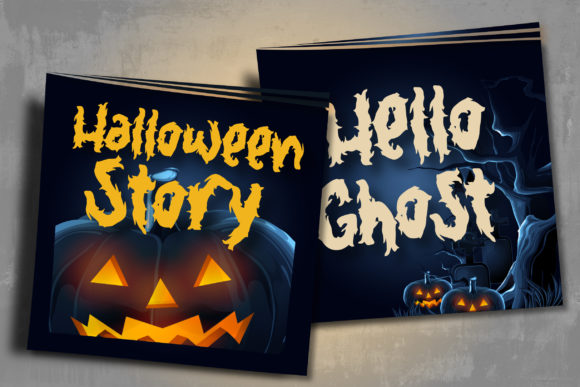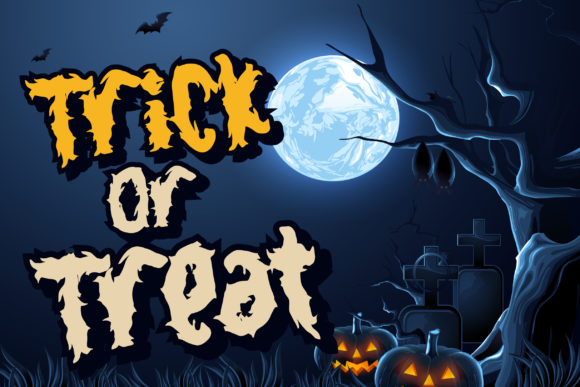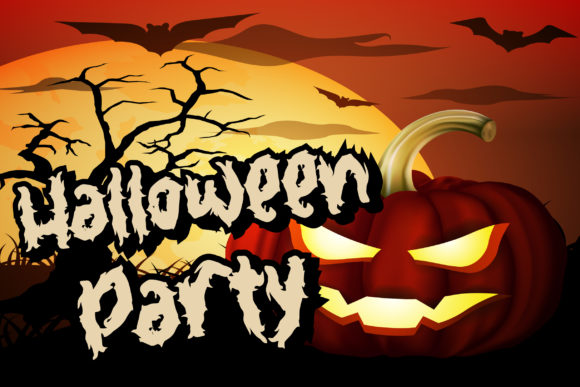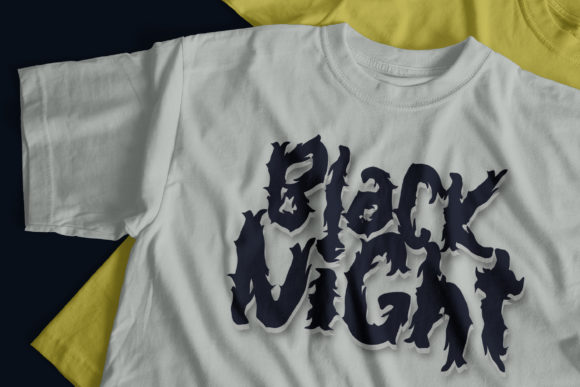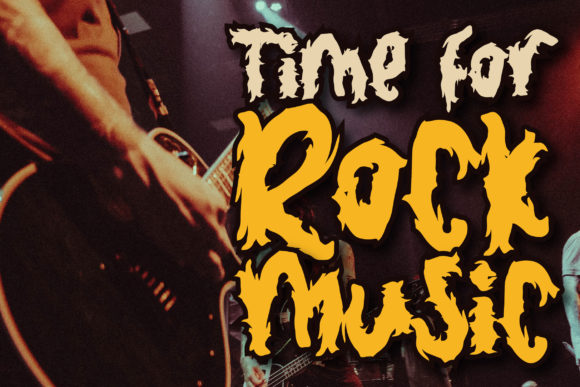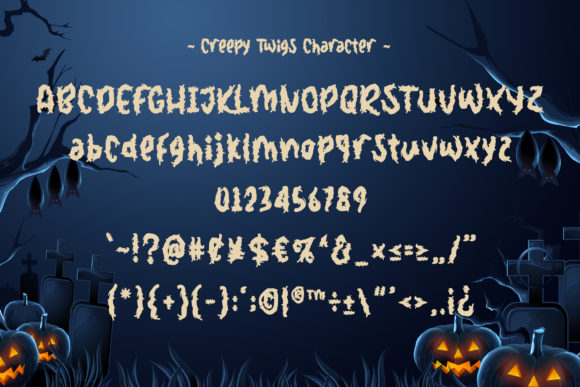
Unlock Your Creativity with the Creepy Twigs Font
Have you ever been working on a design project, pouring your heart and soul into it, only to feel like it’s missing that extra something? You know, that spark that makes it truly stand out from the crowd? For designers, this is a familiar feeling, and it’s where the Creepy Twigs Font comes in – a game-changing display font that adds an unparalleled level of uniqueness to your work.
As a display font, Creepy Twigs is perfect for making a bold statement in your designs. Its quirky, hand-drawn feel is both captivating and unsettling, making it ideal for projects that require a touch of eeriness or whimsy. Whether you’re creating a spooky-themed website, a quirky advertising campaign, or a fantasy novel cover, the Creepy Twigs Font is the perfect addition to take your designs to the next level.
Creepy Twigs Font Key Features
- Font Family: A unique, hand-drawn font with a whimsical and eerie feel, perfect for horror-themed projects or adding a touch of macabre to your designs.
- Character Set: Includes uppercase and lowercase letters, numbers, punctuation marks, and special characters, providing a comprehensive set of glyphs for creative expression.
- Size: The font comes in a single weight, with a recommended size range of 12-48 points for optimal readability and impact.
- Resolution: Designed to be scalable, with high-quality rendering at resolutions up to 300 DPI, making it suitable for print and digital applications.
- Unique Characteristics: Features a distinctive, hand-drawn style with irregular brushstrokes, twigs, and leaves, adding a touch of organic, natural charm to your designs.
Designer Review: Creepy Twigs Font
Overall, I was excited to dive into the Creepy Twigs Font and see what it had to offer. The first thing that caught my eye was its unique, hand-drawn feel, which is sure to add a touch of whimsy to any design project. ✨ The font’s irregularities and imperfections give it a charming, organic quality that’s perfect for titles, headings, and other display text.
However, I did encounter a few limitations while using the font. ⚠️ The character set is somewhat limited, with a lack of punctuation and special characters. This can make it difficult to use in situations where you need to include a lot of extra characters. Additionally, the font’s spacing and kerning can be a bit inconsistent at times, which may require some manual adjustment to get right.
In terms of versatility, Creepy Twigs Font is best suited for projects that require a playful, hand-crafted feel. It’s perfect for children’s books, editorial content, and other designs where you want to create a sense of warmth and personality.
- Unique, hand-drawn feel
- Perfect for titles, headings, and display text
- Charming, organic quality
- Limited character set
- May require manual spacing and kerning adjustments
For a spooky effect, use the Creepy Twigs Font in combination with dark backgrounds and eerie color schemes.
To add texture, use the font on a texture layer or merge it with a texture overlay.
The Creepy Twigs Font is perfect for:
Spooky invitations and party decorations.
Halloween-themed graphics and posters.
Dark and mysterious branding and marketing materials.